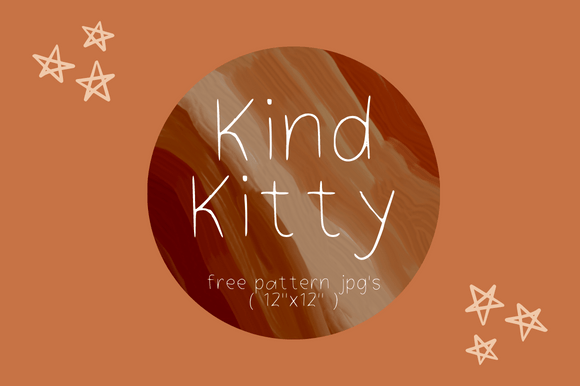
Introducing Kind Kitty Font, the ultimate choice for those seeking the best fonts for simple logos. Crafted with elegance and precision by sweetsparkles, this distinctive font family is designed to captivate and leave a lasting impression.
With its unique and appealing design, Kind Kitty is sure to catch the eye of anyone who lays their gaze upon it. Each letter is carefully crafted, exuding a sense of sophistication and charm that instantly elevates any project it graces.
Are you in need of a font that will breathe life into your branding endeavors? Look no further! Kind Kitty Font is the perfect companion for creating memorable and professional logos. Its sleek lines and attention to detail give your brand an edge, setting it apart from the mundane and instantly establishing credibility.
Signage plays a crucial role in attracting customers, and Kind Kitty Font ensures that your messages stand out from the crowd. Its bold and striking appearance ensures that passersby will take notice, making your business impossible to ignore. Let your signs become a magnet for customers, drawing them in with the allure of this captivating font.
Print materials hold immense power in conveying your message effectively, and Kind Kitty Font is the secret weapon you need. Whether it's brochures, flyers, or business cards, this font adds a touch of class and professionalism to your designs. Impress your audience with its refined aesthetic, ensuring that your message is not only seen but remembered long after it's been read.
But Kind Kitty Font isn't just about appearance; it's about emotions. It evokes a sense of nostalgia, reminding us of simpler times and the joy found in life's little pleasures. Its whimsical nature sparks creativity and injects a sense of playfulness into your projects, making them truly one-of-a-kind.
So, why settle for ordinary fonts when you can embrace the extraordinary? Kind Kitty Font is the epitome of versatility, seamlessly blending elegance and charm. With its wide range of potential applications, it's the perfect choice for designers, entrepreneurs, and creatives alike.
In conclusion, Kind Kitty Font is the answer to all your font needs. Its distinctive and captivating design, coupled with its ability to elevate any project, makes it a must-have for those striving for excellence. Immerse yourself in the world of Kind Kitty and unleash your creativity like never before.